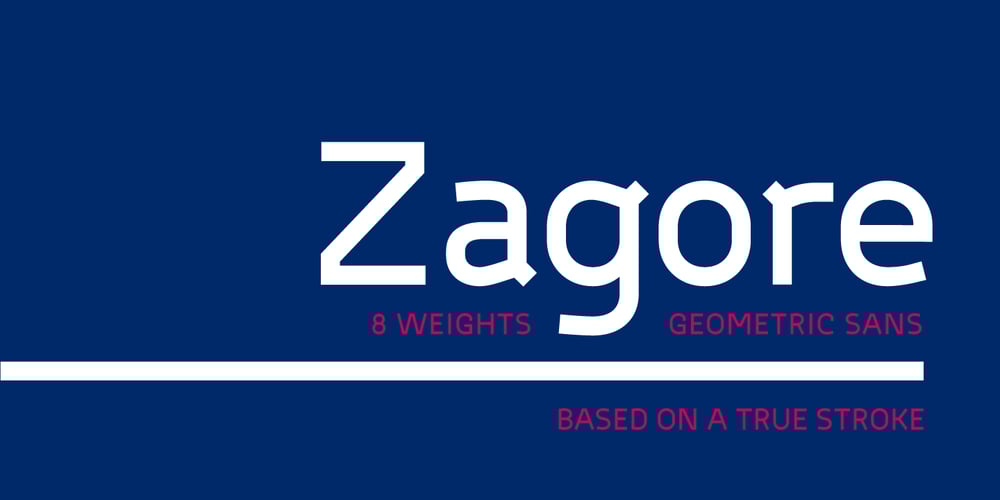
Zagore Font Family was designed by Asen Tiberiy Baramov and published by NoCommenType. Zagore contains 8 styles and family package options. Zagore (zɑːgɔːrɛ) is the name of a beautiful place in Bulgaria.There is no contrast between horizontal and vertical stems, typical for geometric fonts. The typeface is built under strict rules and logic, by using the stroke as skeleton for each glyph. Although the structure of the font remains the same, there is a noticeable visual diversity throughout different styles. Middle weights suggest paragraph use, while the ones at the extremes are more suited for display text. The typeface offers support for Basic Latin, Latin-1 Supplement, Latin Extended-A, Greek and Coptic, Cyrillic, and Cyrillic Supplement Unicode ranges. Included OpenType features are localized forms, to suit multi-language designs, tabular and proportional lining, basic ligatures, and extra symbols.